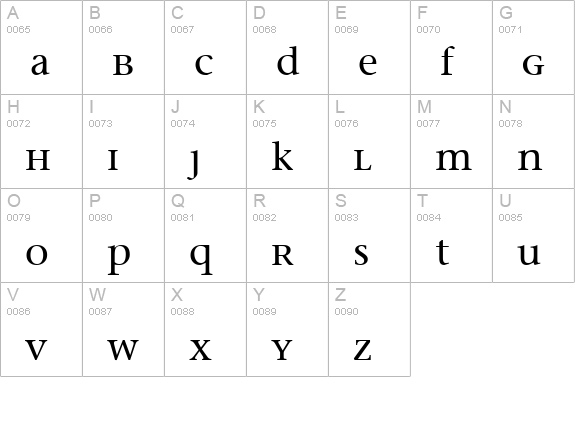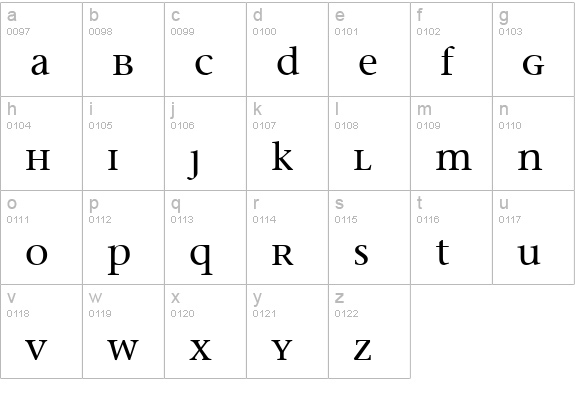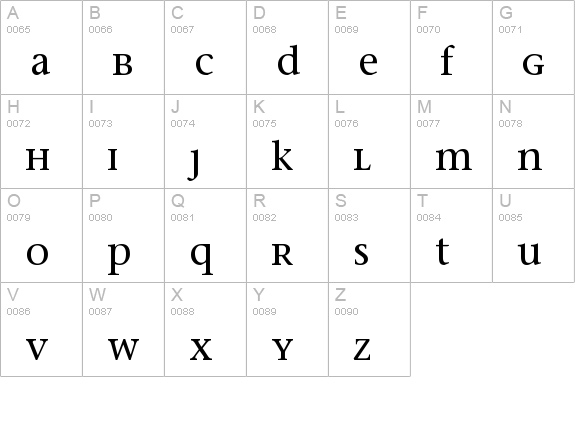
MigraineSerif Font Details
MigraineSerif font is a striking and stylish typeface that exudes elegance and sophistication. With its unique serifs and sleek design, this font is perfect for adding a touch of class to any project. Whether you're creating a professional document, designing a website, or crafting eye-catching graphics, MigraineSerif font is sure to make a statement. The best part? MigraineSerif font is available for free download at FontsMarket.com. This means you can easily access this beautiful font and start using it in your designs right away, without any cost. Don't miss out on this amazing opportunity to enhance your projects with the timeless beauty of MigraineSerif font. Download it today and elevate your design game to new heights!